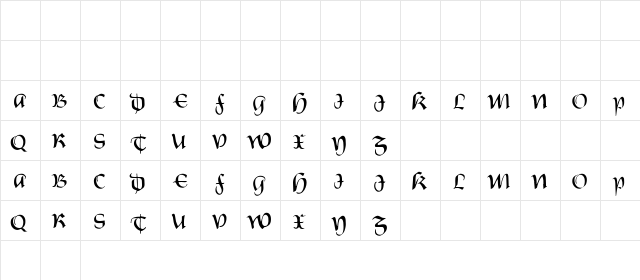
Castiglione Regular
Design Context for Castiglione Typeface
Castiglione is a composed and adaptable typeface that performs quietly and consistently across a wide range of design contexts.